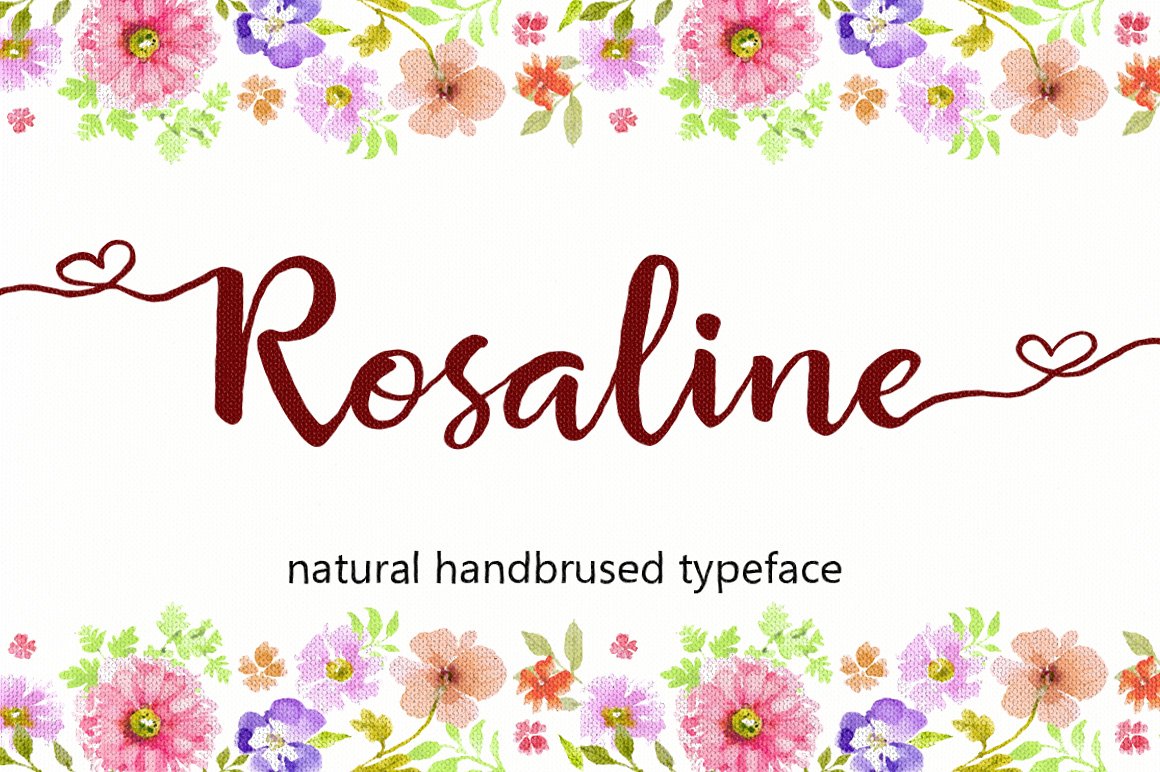
Rosaline Script Font
Rosaline a new fresh & modern script with a sweet calligraphy-style, decorative characters and a dancing baseline! So beautiful on invitation like greeting cards, branding materials, business cards, quotes, posters, and more!